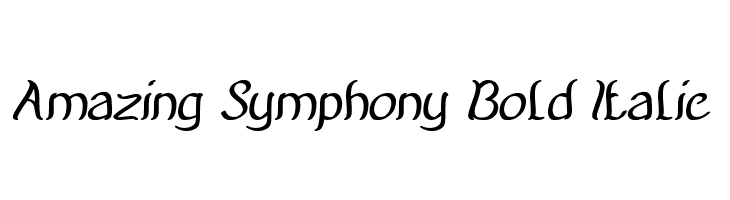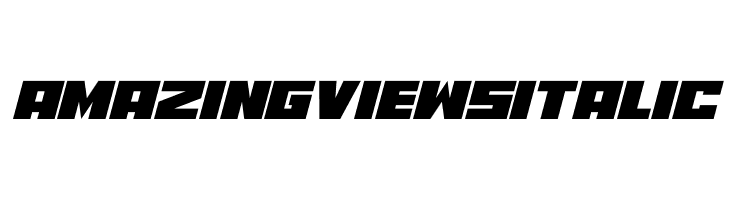
A modern, sleek font with geometric and rounded elements, offering a clean and contemporary look.
A modern, playful font with rounded characters and consistent stroke width.
A bold, italic script font with smooth, interconnected characters.
A sleek, italicized font with flowing, consistent strokes.
A bold, futuristic font with angular, geometric shapes and a dynamic style.
A dynamic, angular font with a futuristic and tech-inspired design.
A bold, slanted font with sharp angles and a futuristic style.
A bold, playful handwritten font with fluid strokes and a casual style.
A lively, expressive handwritten font with fluid, dynamic strokes.
A lively, expressive handwritten font with bold, flowing strokes.